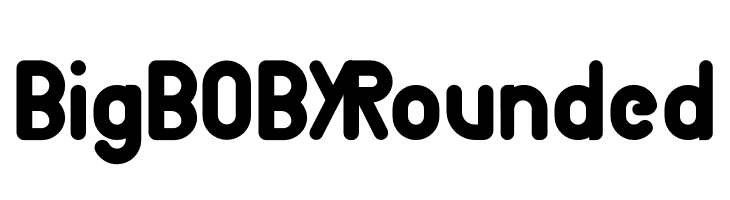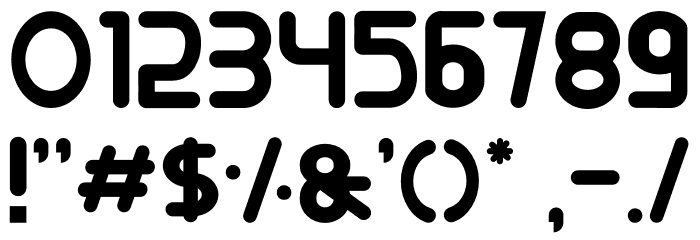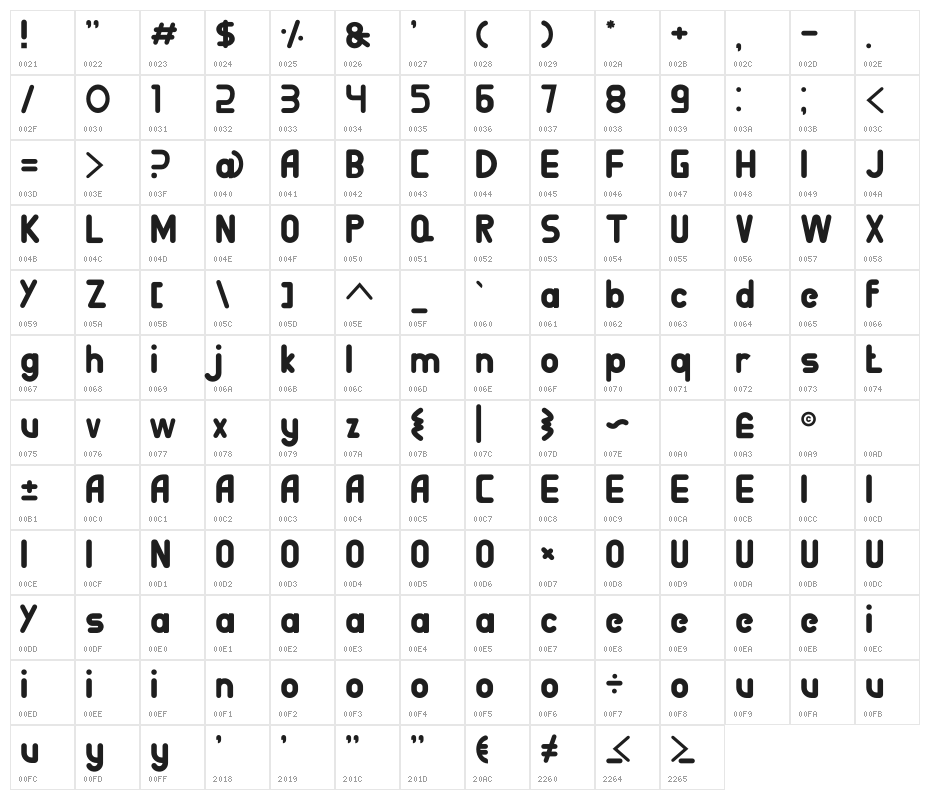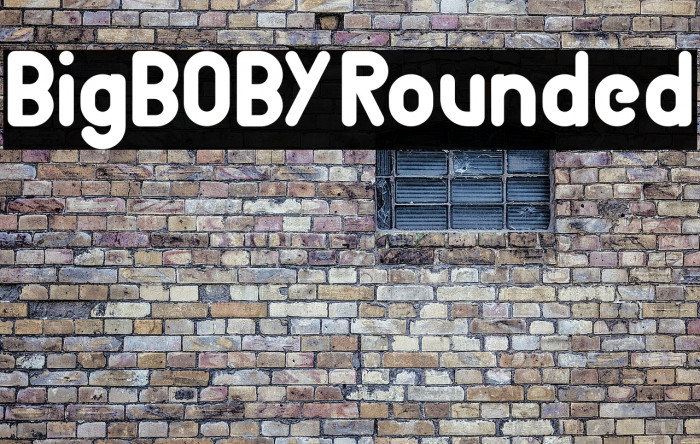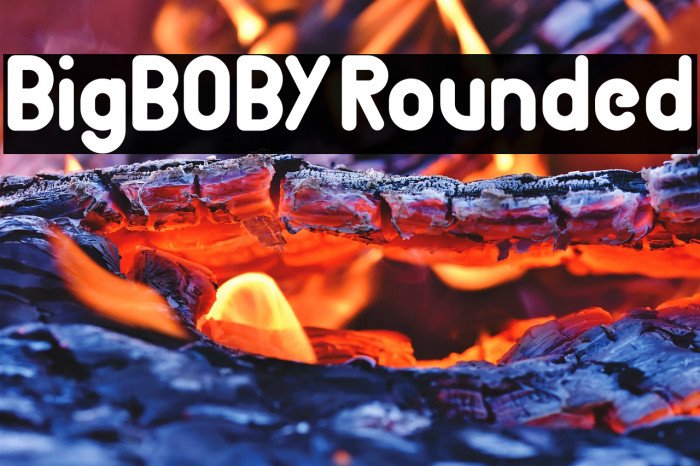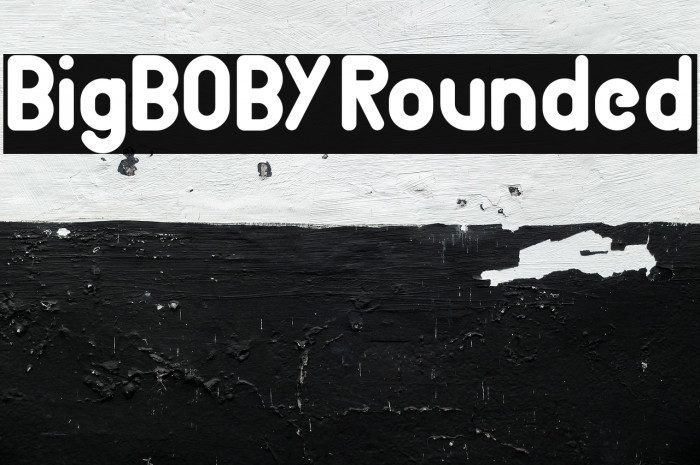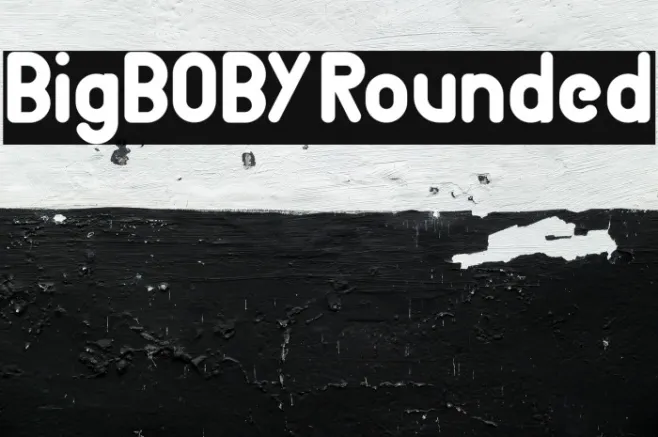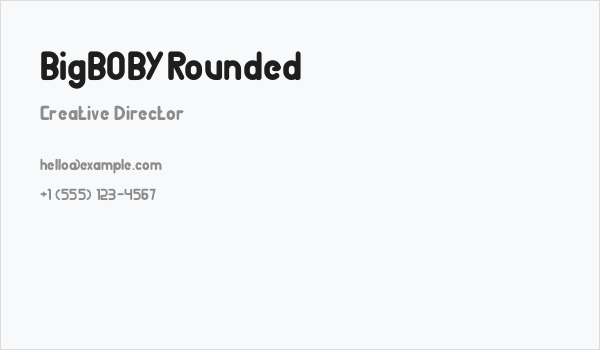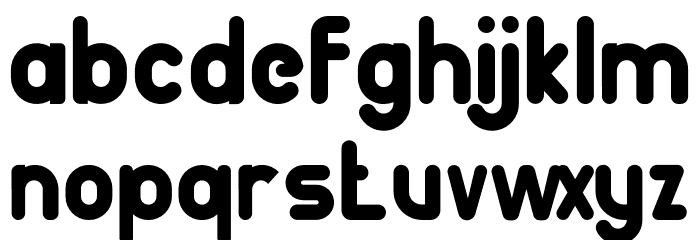
BigBOBY Rounded Font
BigBOBY Rounded Description
This font features a playful and rounded style, characterized by its bold and smooth curves. The letters are uniformly thick, creating a consistent and friendly appearance. The rounded edges give it a soft and approachable feel, making it ideal for projects that require a touch of whimsy or warmth. The numerals and special characters maintain the same rounded aesthetic, ensuring cohesion across all text elements. This font is versatile and can be used in various design contexts where a modern yet friendly look is desired.
| Proposed Projects | Ideal for children's books, playful branding, casual invitations, and friendly signage. |